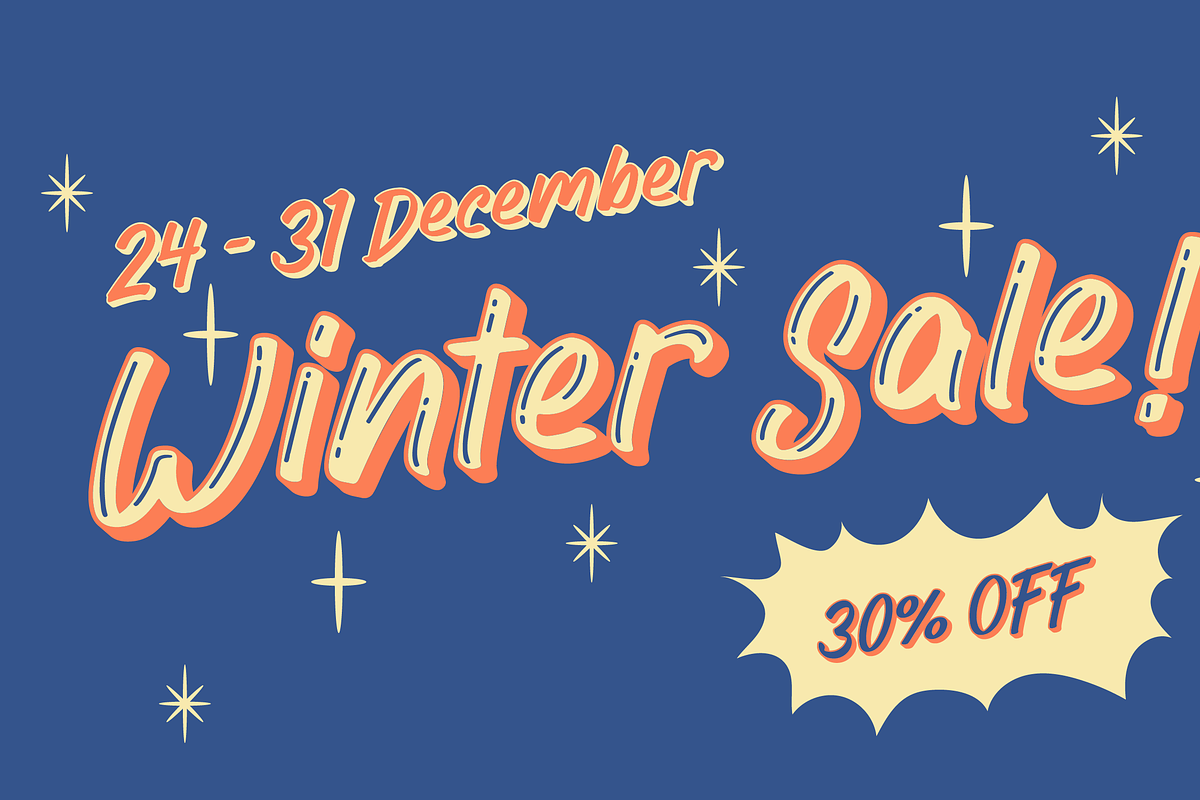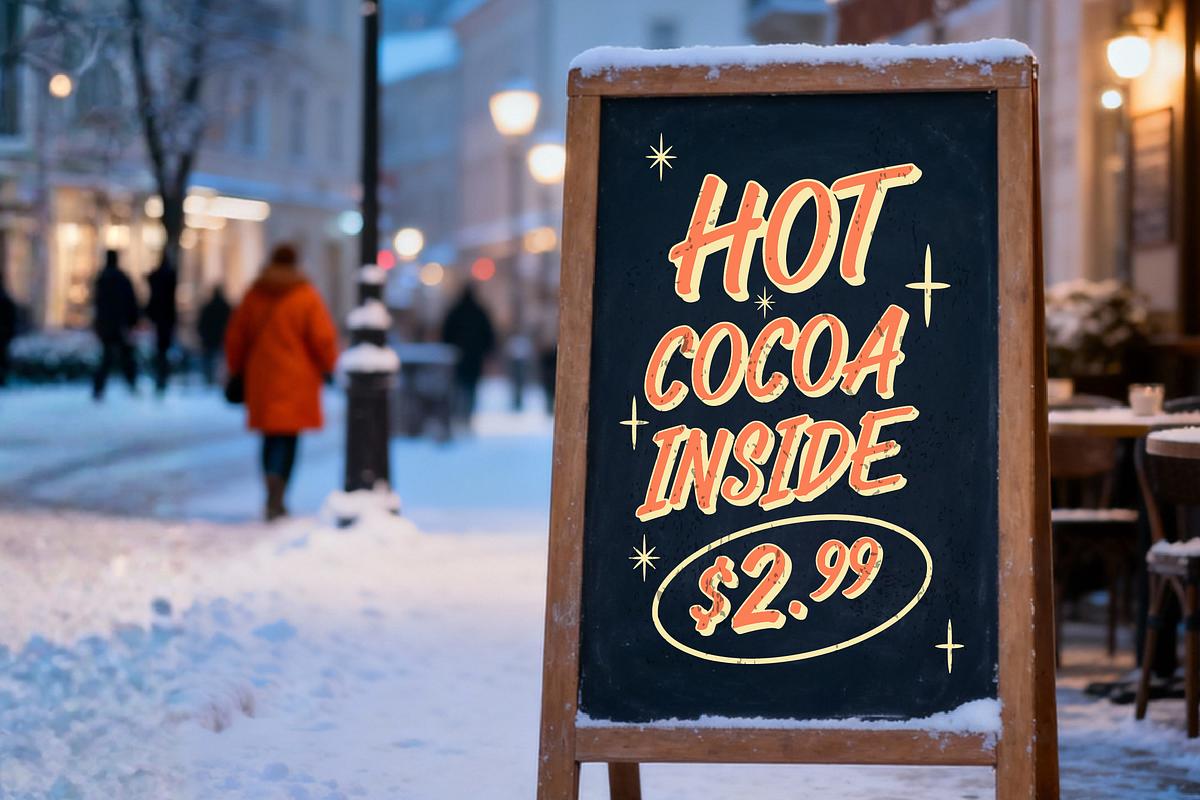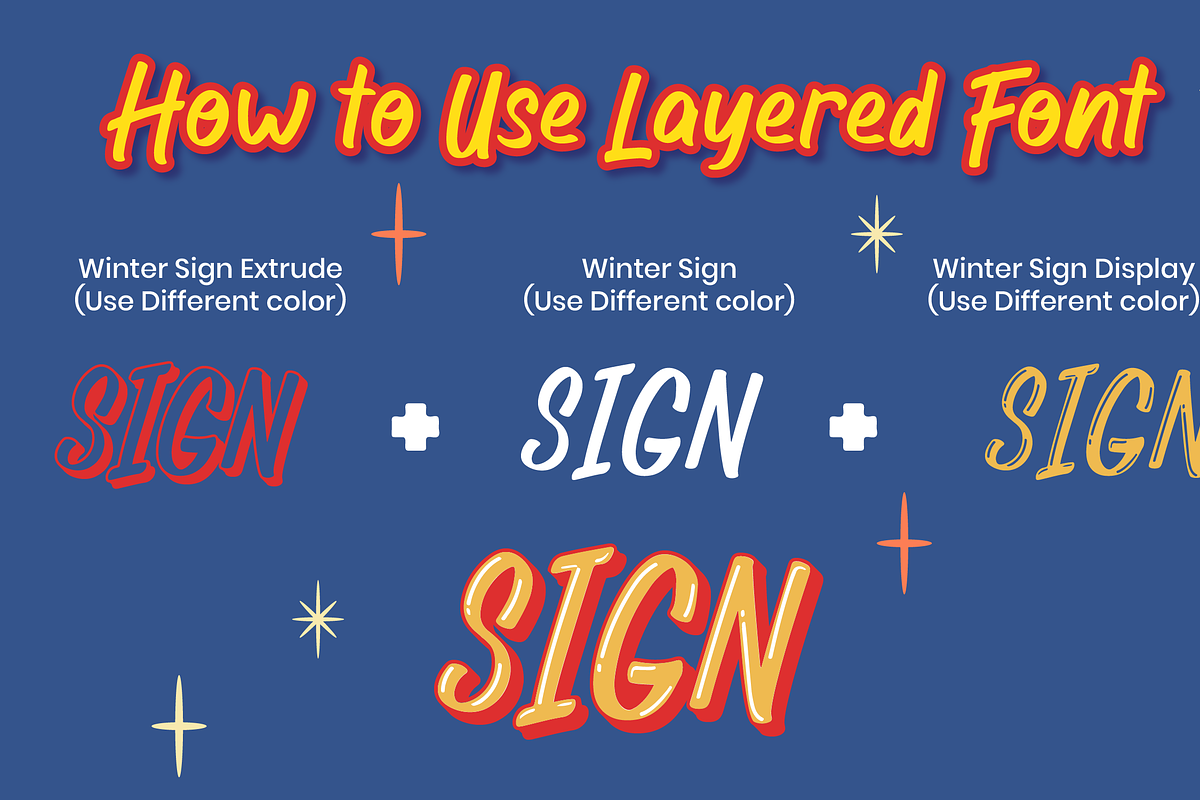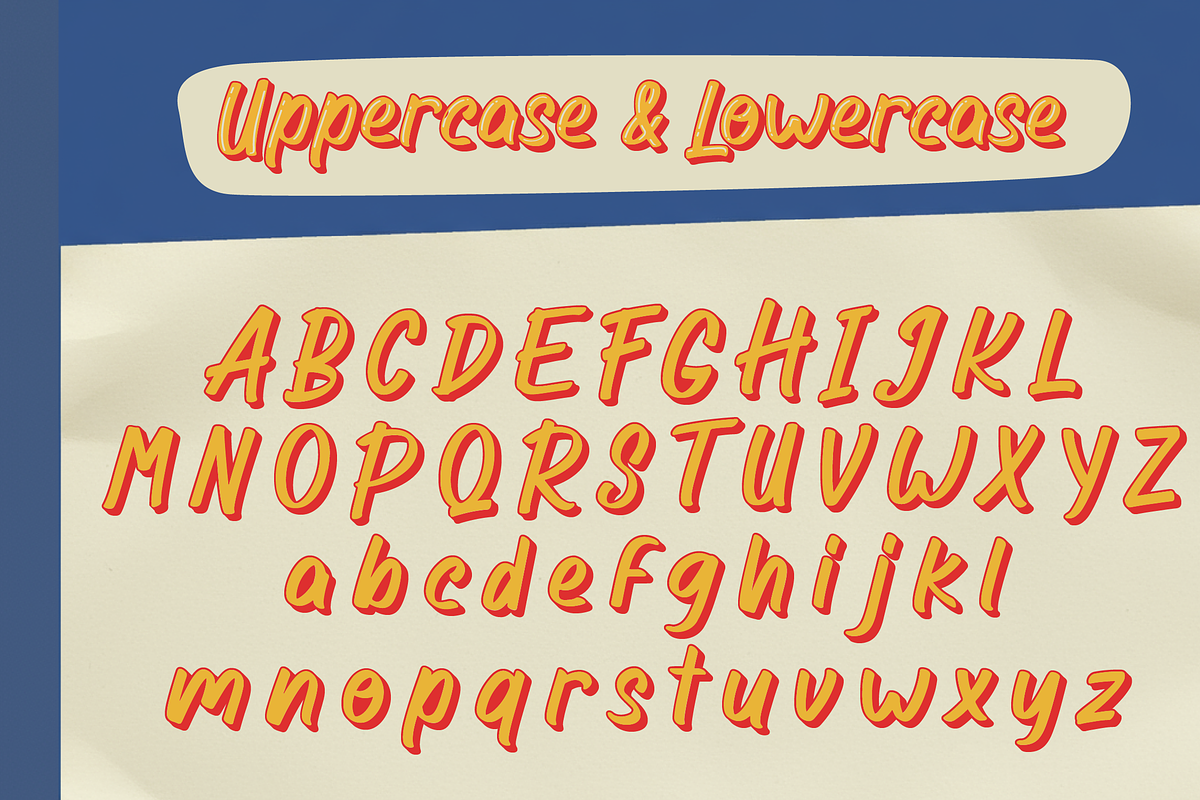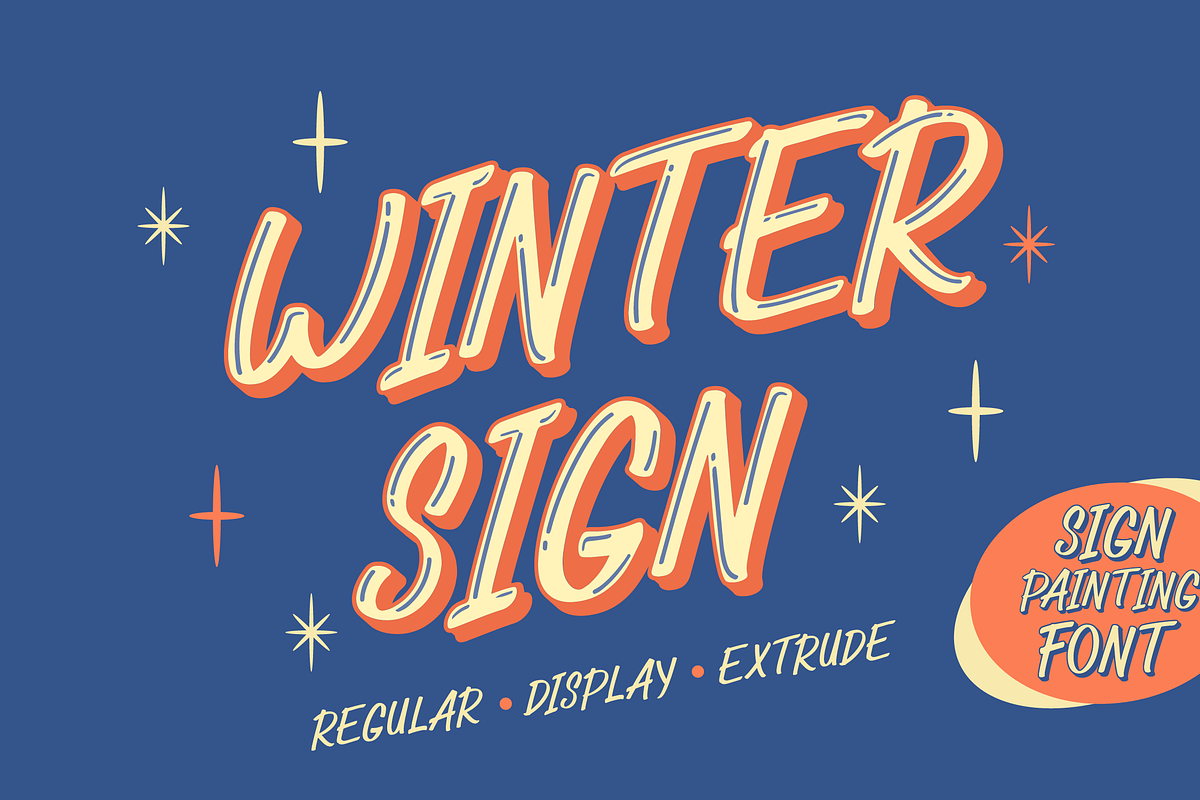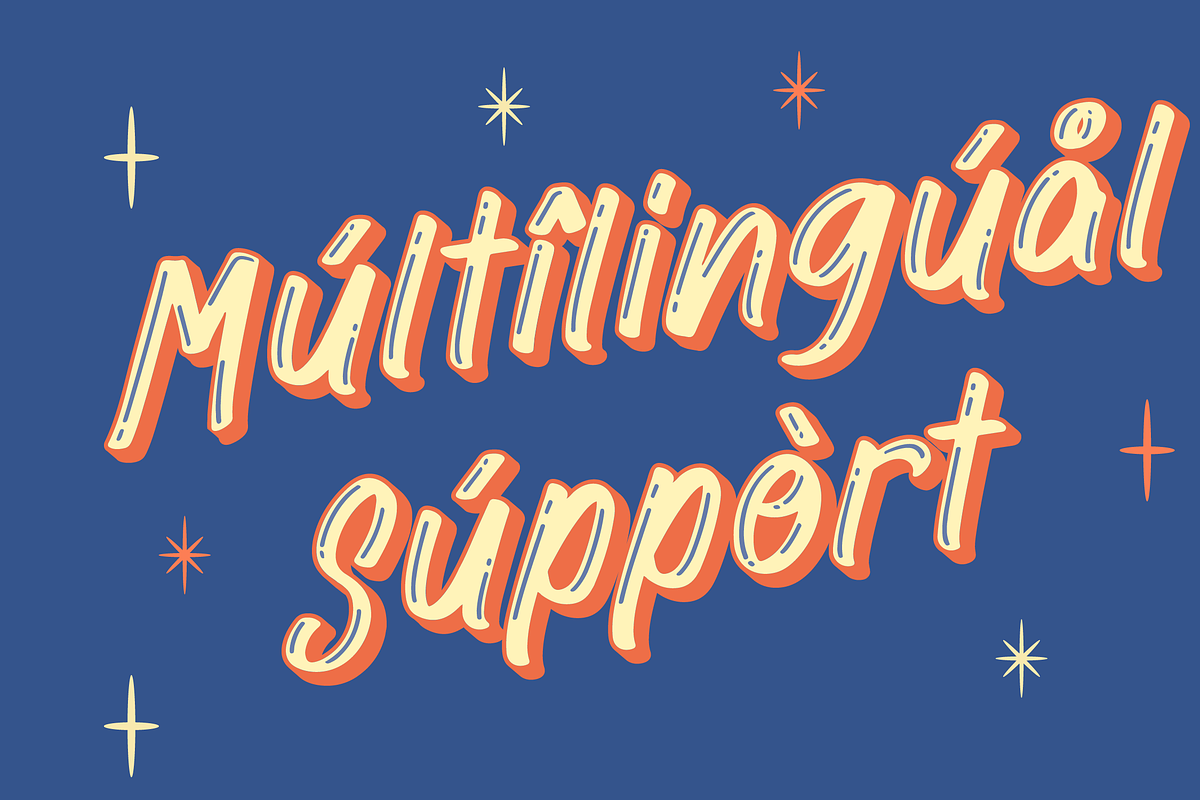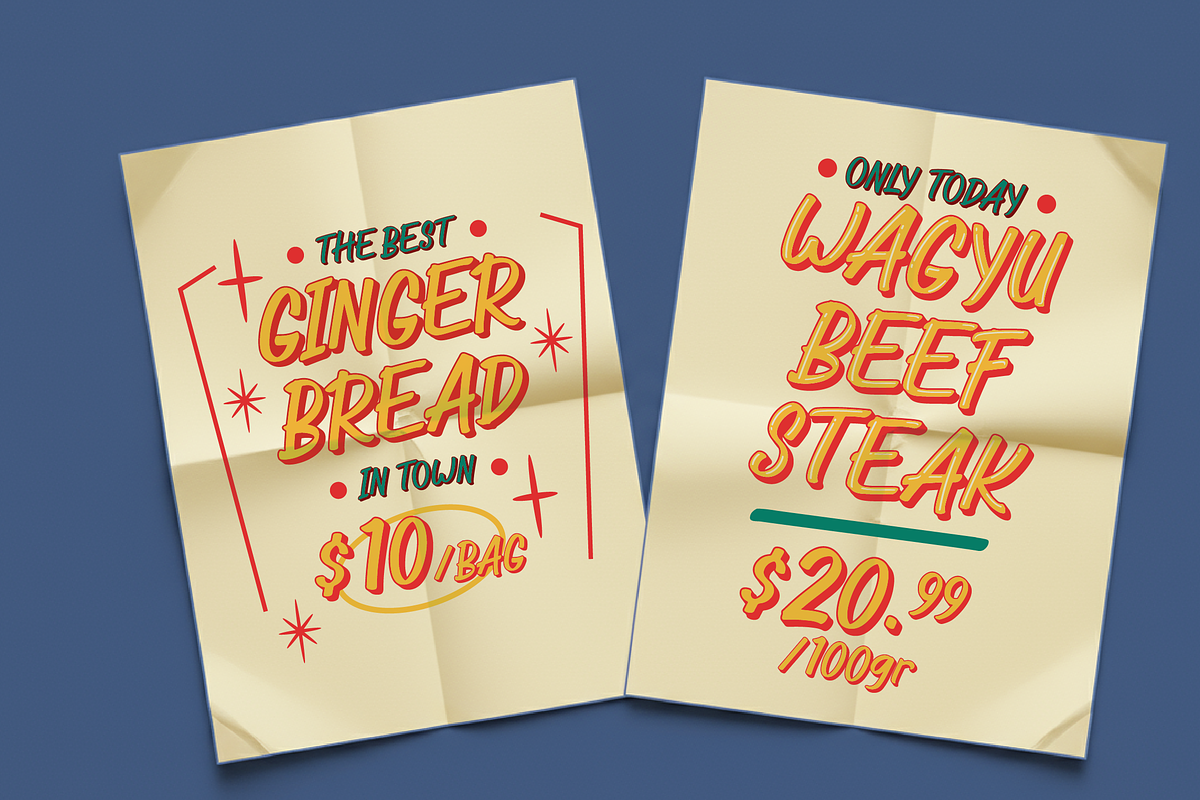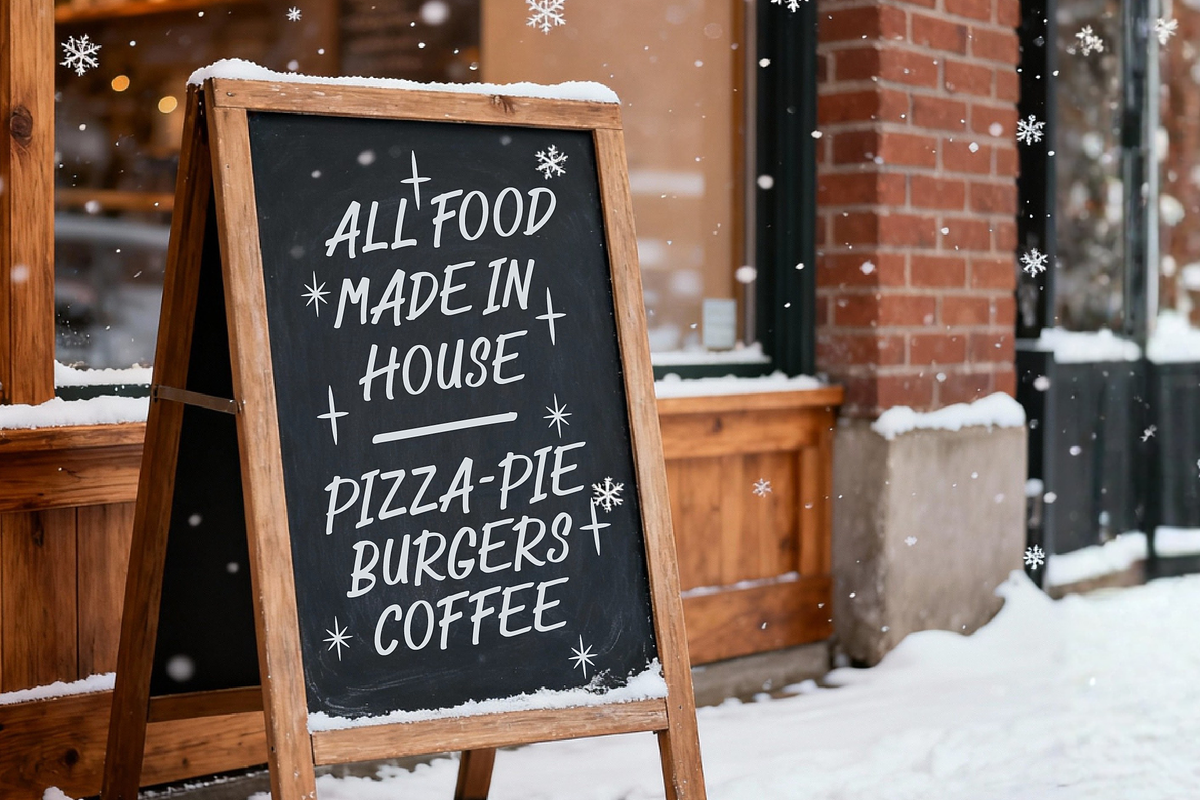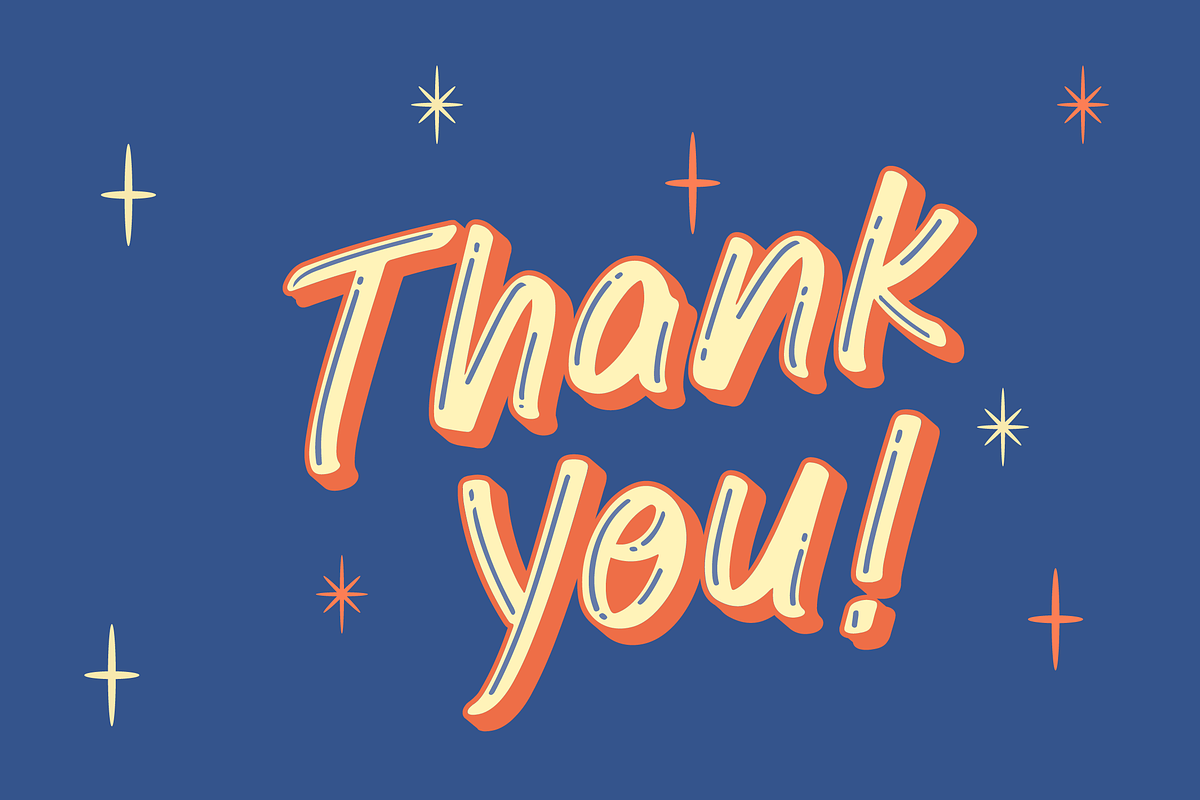
Winter Sign - Sign Painting Font
Bring authentic vintage charm to your creative projects with Winter Sign, a meticulously crafted sign painting font that captures the timeless appeal of hand-painted storefront lettering from the golden age of American signage.
This professionally designed typeface features flowing italic letterforms, and complete multilingual support that solves the biggest challenge facing modern designers: achieving authentic hand-lettered character without sacrificing legibility or professional polish. Perfect for seasonal promotions, cafe menus, storefront signage, product packaging, and holiday marketing campaigns, Winter Sign delivers the nostalgic warmth of traditional sign painting craft with modern digital convenience through three distinct style variations (Regular, Display, and Extrude) that allow you to create stunning layered effects reminiscent of classic painted shop windows.
Perfect for: Perfect for cafe and restaurant menu boards, seasonal sale signage, holiday greeting cards, product packaging design, storefront window displays, food and beverage branding, retro poster design, and small business visual identity projects.